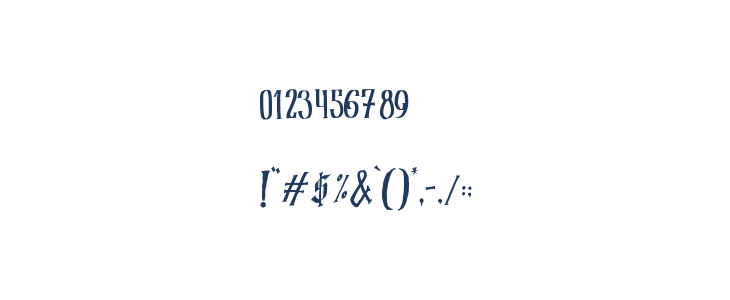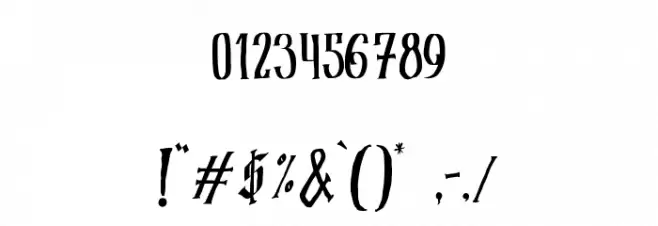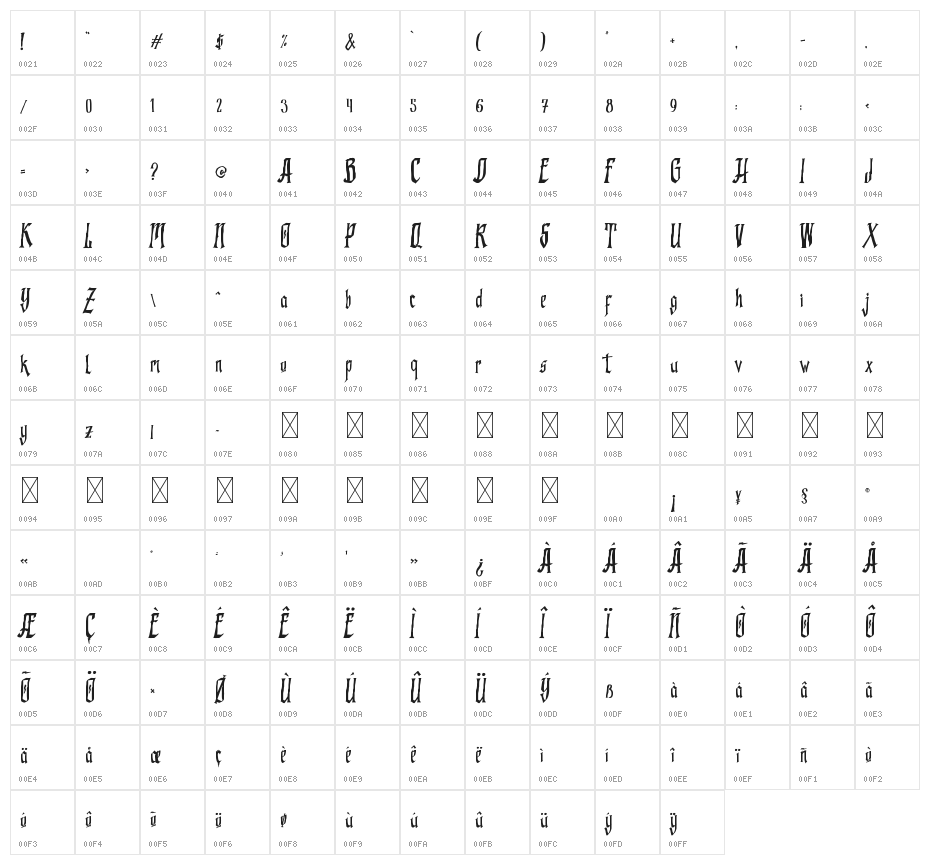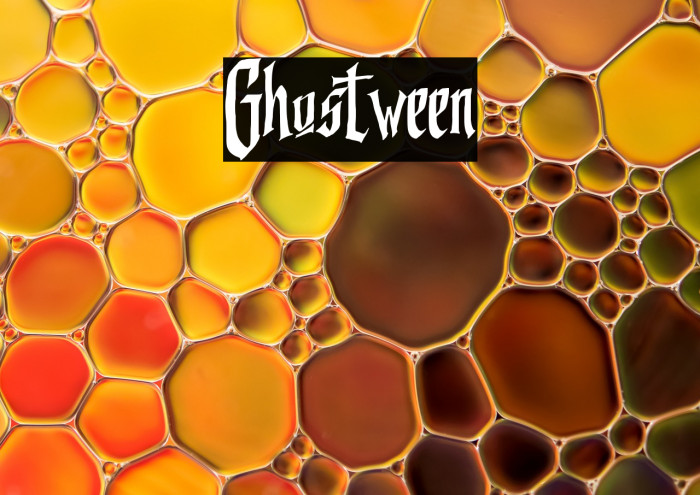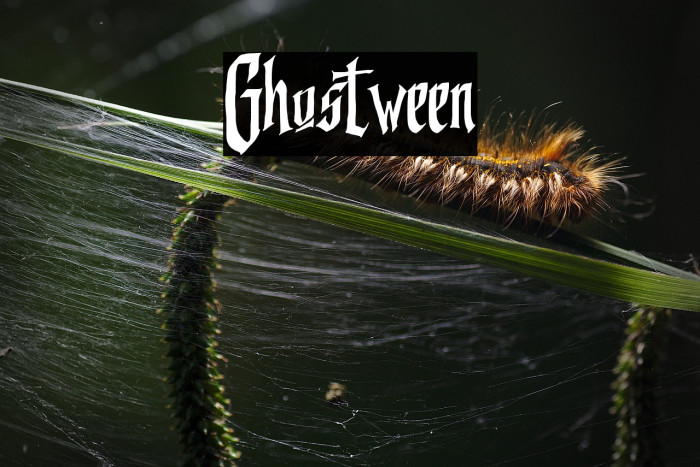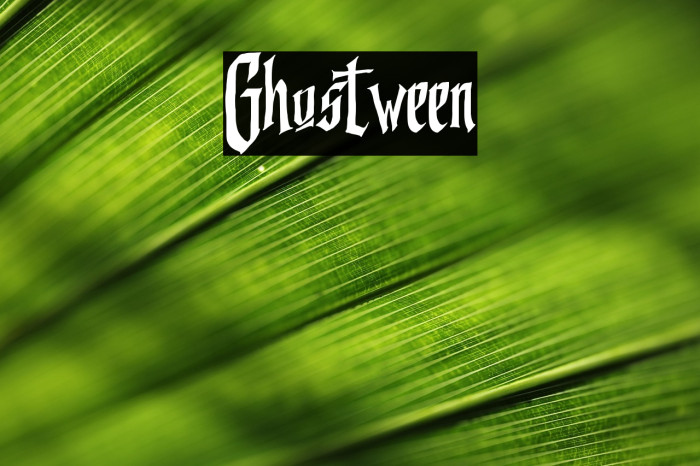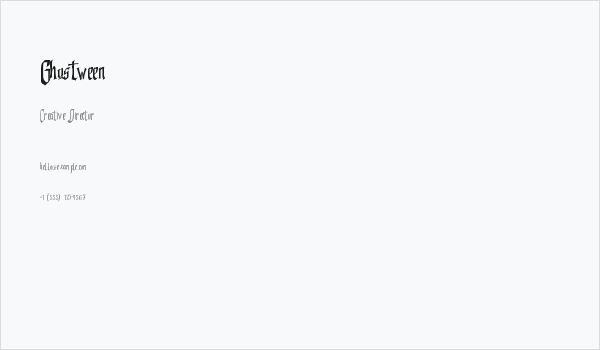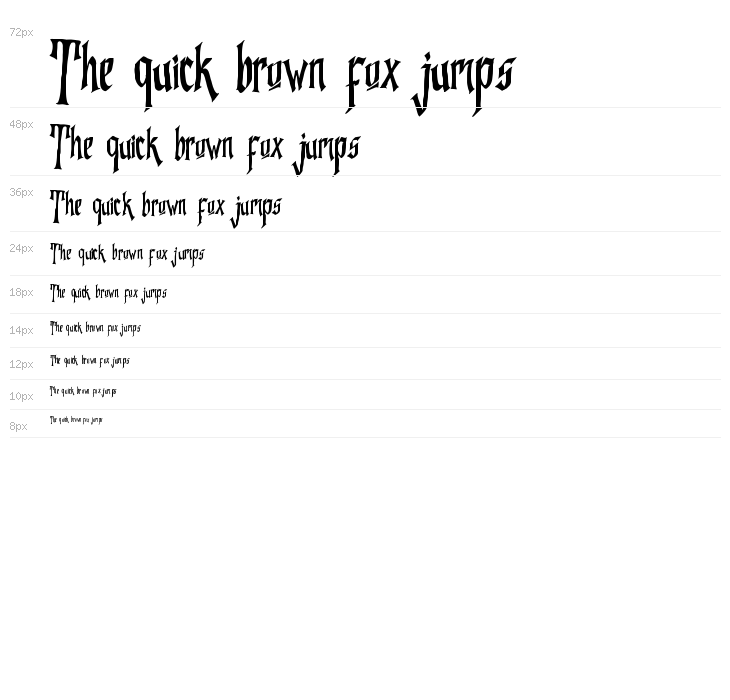
Ghostween Font
Ghostween Description
This font exudes a spooky and gothic vibe, perfect for Halloween-themed projects. The characters are elongated and slightly distorted, giving them a ghostly appearance. The uppercase letters are bold and dramatic, while the lowercase letters maintain a consistent style with sharp edges and pointed serifs. Numbers and special characters follow the same eerie aesthetic, making the font cohesive and versatile for various uses. The overall design is reminiscent of classic horror movie posters, with a modern twist that adds to its unique charm.
| Overall Style | Gothic, Spooky |
| Proposed Projects | Ideal for Halloween invitations, horror movie posters, themed event flyers, and spooky merchandise designs. |